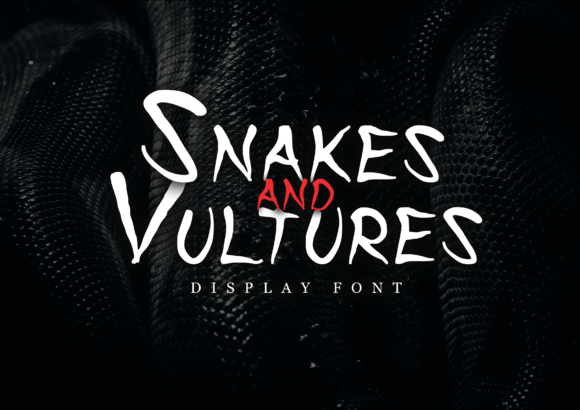
Snakes and Vultures: A Spooky Display Font for Horror-Inspired Designs
The Snakes and Vultures font is a distinctive and attention-grabbing typeface that blends elements of horror and eccentricity. Designed with a focus on visual impact, it draws inspiration from cult horror movies, resulting in a style that feels both unsettling and whimsical. This unique combination makes it a popular choice for projects that require a bold, eerie aesthetic.
What Makes Snakes and Vultures Unique?
Snakes and Vultures stands out due to its unconventional design and strong thematic identity. The font features exaggerated letterforms, sharp angles, and irregular shapes that evoke a sense of danger and mystery. These characteristics make it ideal for creative projects that aim to convey a spooky or mysterious atmosphere.
Unlike traditional fonts that prioritize readability and neutrality, Snakes and Vultures embraces a more stylized approach. Its design often includes subtle details such as jagged edges, uneven spacing, and symbolic motifs that reinforce its horror-inspired theme. This level of detail can add depth to any visual project, but it also means the font may not be suitable for all applications.
Comparing Snakes and Vultures with Similar Fonts
When considering display fonts for horror-themed designs, there are several alternatives that offer different levels of intensity and style. Some fonts emphasize simplicity and clarity, while others lean into more extreme or abstract forms. Snakes and Vultures falls somewhere in the middle, offering a balance between visual intrigue and practical usability.
Fonts like Creepster or Bebas Neue provide a more streamlined look, making them better suited for logos or headings where legibility is important. In contrast, Snakes and Vultures leans into a more chaotic and unpredictable appearance, which may be less effective in certain contexts. However, for projects that intentionally seek a more dramatic or unconventional feel, this font can be a powerful tool.
Strengths and Best-Fit Situations
One of the main strengths of Snakes and Vultures is its ability to immediately communicate a specific mood or theme. Its design is highly evocative, making it an excellent choice for Halloween-related projects, horror movie posters, or album covers that aim to capture a dark and mysterious vibe.
This font is particularly well-suited for creative industries that value visual storytelling. For example, a band looking to create an album cover with a gothic or cult-like aesthetic might find Snakes and Vultures to be a fitting choice. Similarly, a designer working on a promotional poster for a haunted house attraction could use this font to enhance the overall spooky atmosphere.
Another advantage is its versatility in terms of application. While it is most commonly used in print and digital media, it can also be adapted for web use, provided the designer is mindful of how it renders across different platforms and screen sizes.
Tradeoffs and Limitations
Despite its appeal, Snakes and Vultures is not without its limitations. One key consideration is its suitability for long-form text. Due to its stylized nature, the font may be difficult to read when used in large blocks of text. This makes it less appropriate for body copy or detailed information, where clarity and ease of reading are essential.
Additionally, the fontβs unique design may not align with all brand identities. Companies or organizations that aim for a professional or modern look may find that Snakes and Vultures feels too unconventional or inappropriate for their needs. In such cases, a more neutral or minimalist font might be a better fit.
Another tradeoff is the potential for overuse. As with any popular font, there is a risk that it may become associated with a particular trend or aesthetic. Designers should consider whether using Snakes and Vultures will help or hinder the uniqueness of their project.
When to Choose Snakes and Vultures
Snakes and Vultures is best suited for projects that benefit from a strong visual statement. If the goal is to create an immediate emotional response or to set a specific tone, this font can be an effective choice. It works well in situations where the design itself is the focal point, rather than the text content.
For example, a Halloween event flyer that aims to grab attention and convey a sense of fear or excitement could use Snakes and Vultures to enhance its visual impact. Similarly, a movie poster for a cult horror film might incorporate the font to reinforce the filmβs themes and attract the target audience.
Alternatives to Consider
If the spooky aesthetic of Snakes and Vultures is appealing but the font itself doesnβt meet the specific needs of a project, there are other options worth exploring. Fonts like Halloween, Graveyard, or Old English offer similar themes but with different stylistic approaches.
Some fonts may be more readable or adaptable to various formats, making them better choices for broader applications. Others may have a more refined or artistic feel, which could be preferable depending on the intended use. Evaluating these alternatives alongside Snakes and Vultures can help designers make a more informed decision.
Ultimately, the choice of font depends on the specific goals of the project, the target audience, and the desired visual outcome. Understanding the strengths and limitations of each option ensures that the final design is both effective and appropriate.